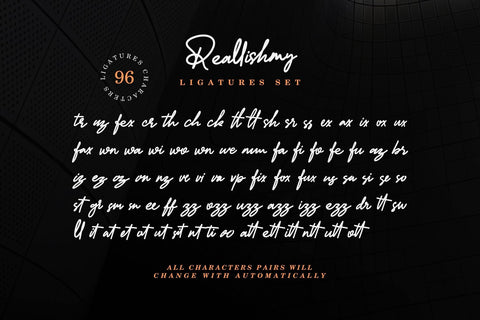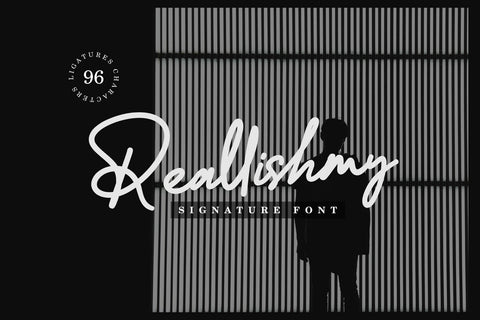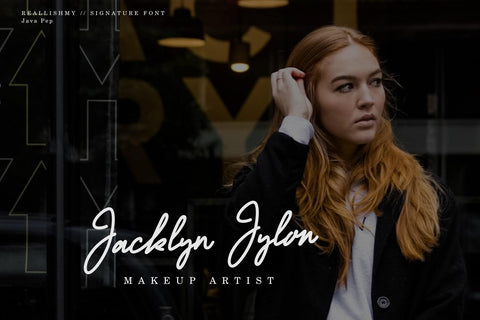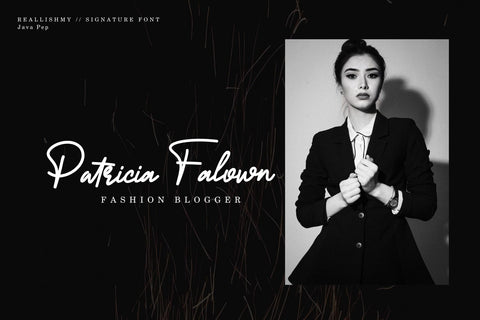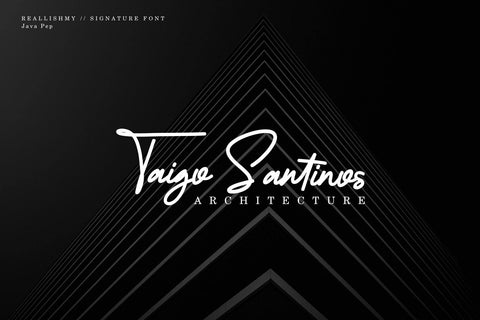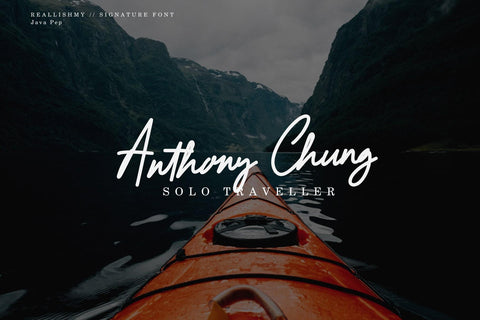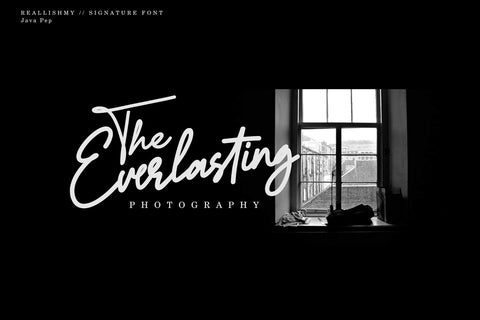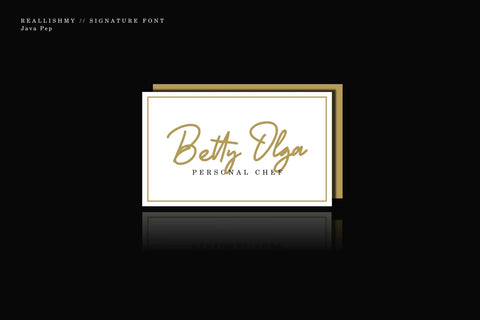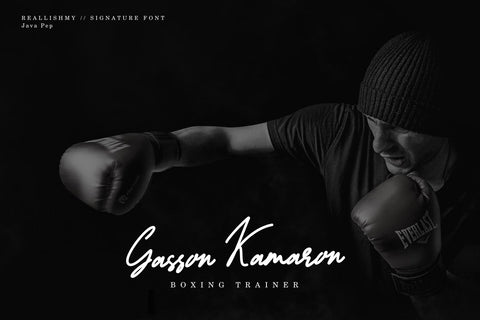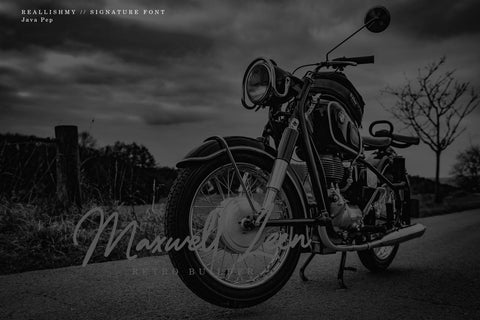
Reallishmy // Signature Font
Introducing the signature font called Reallishmy. This font has 96 ligatures set so that the natural feeling of handwriting is more pronounced. Reallishmy is perfect for placing as the main title, headline, logotype, personal branding in your design project.
• 96 ligatures set